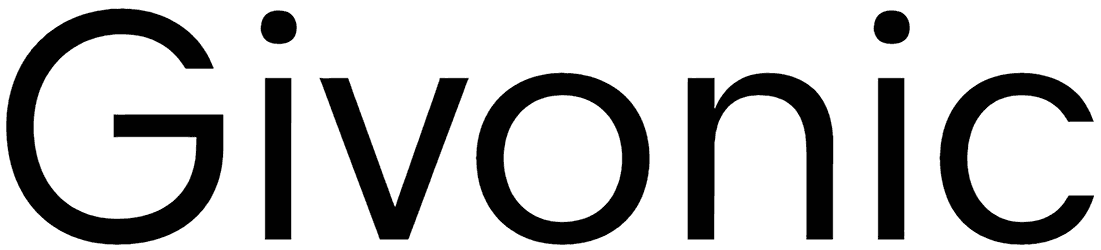
Givonic Font
With a classic and formal face, you can show your new design with a reliable and original mood. As a sans serif font, Givonic has a unique matchable style for modern or classic layouts. Embed Givonic in your subsequent designs, such as flyers, logos, magazines, or the like, and be creative.